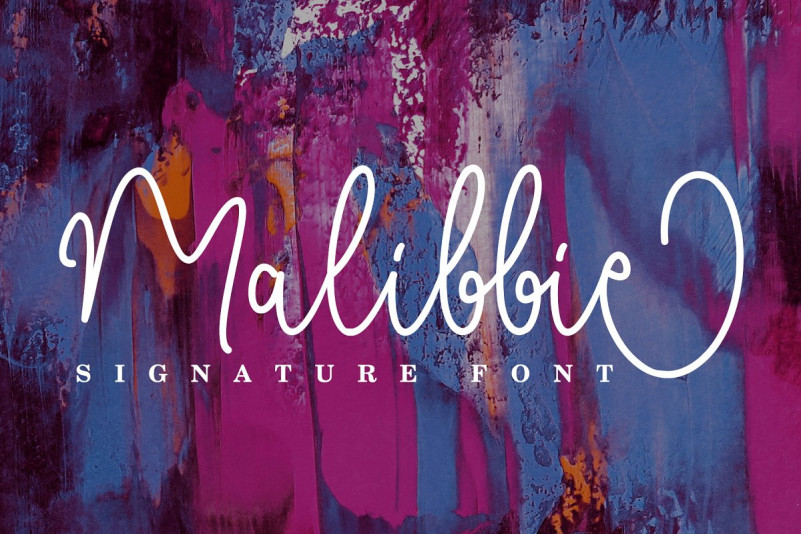
Malibbie Signature Font
Hi designer! The best free font package today is a contemporary handwritten font. Introducing Malibbie Font! It’s designed by  Aldedesign. It’s a font with awesome and classy taste, comes with natural touch, so much ligatures. We keep this font looks classy, readable, elegant, stylish, catchy and absolutly easy to use. Malibbies Handwritten is the great choice for watermark on branding, design, wedding, photography, signature, logo design, album cover, business card, quotes, and many other design project.